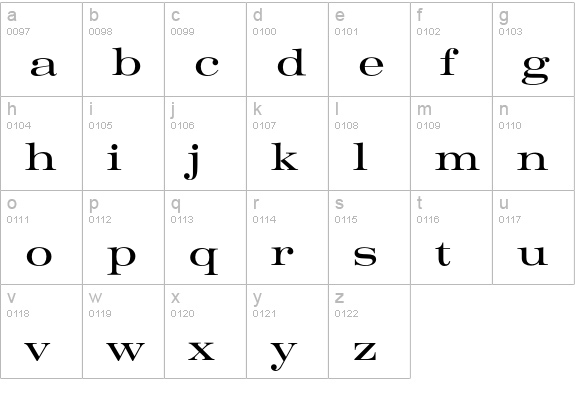
PromotorEF-Regular Font Details
PromotorEF-Regular is the standard, neutral variant in the PromotorEF typeface family \xE2\x80\x94 well suited to general body text, paragraphs, and standard typographic work.
PromotorEF-Regular font is a versatile and modern typeface that is perfect for a wide range of design projects. Its clean lines and balanced proportions make it highly readable, making it ideal for both print and digital applications. The font exudes professionalism and sophistication, making it suitable for branding, editorial design, and more. What sets PromotorEF-Regular font apart is that it is available for free download at FontsMarket.com. This means that you can easily access and use this high-quality font in your projects without any cost. Whether you are a designer looking for a reliable font option or a business owner seeking a polished look for your branding materials, PromotorEF-Regular font is a fantastic choice that won't break the bank. Download it now and elevate your designs with this elegant and contemporary typeface.